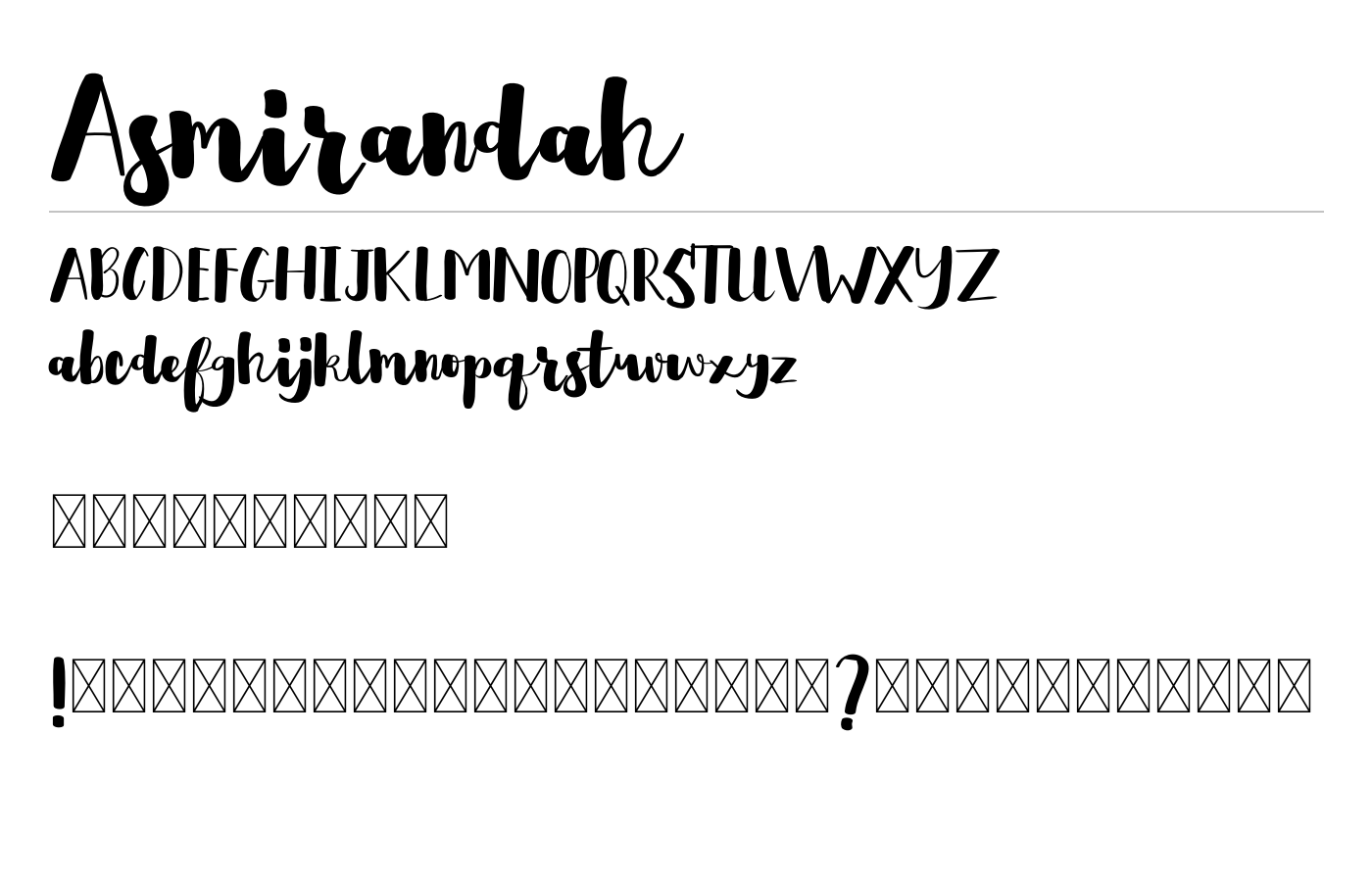
Asmirandah Font is a charming and playful script typeface that features smooth, flowing strokes with a casual handwritten feel. Its moderately bold weight and lively letterforms make it ideal for creative projects, adding a friendly and inviting personality to logos, invitations, and social media graphics. This font works especially well where a warm, approachable look is desired, blending elegance with a touch of whimsy.
Asmirandah Font
About Asmirandah Font
| Font family | Asmirandah Font |
| Designer | Ana Natalia |